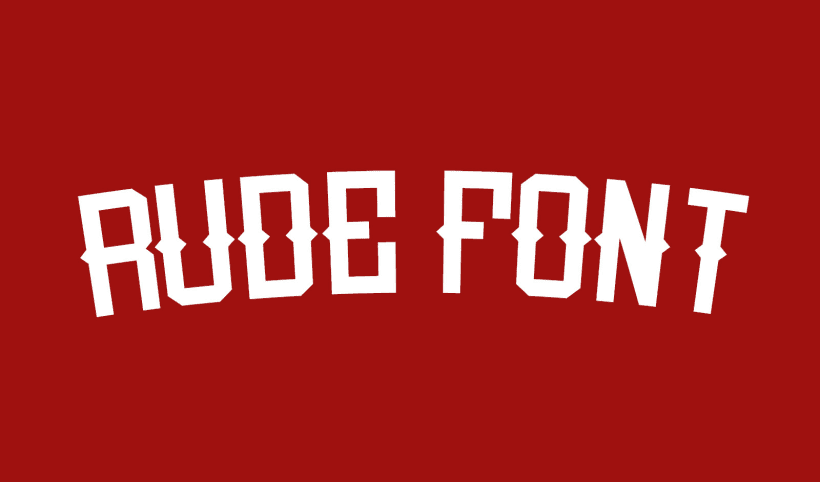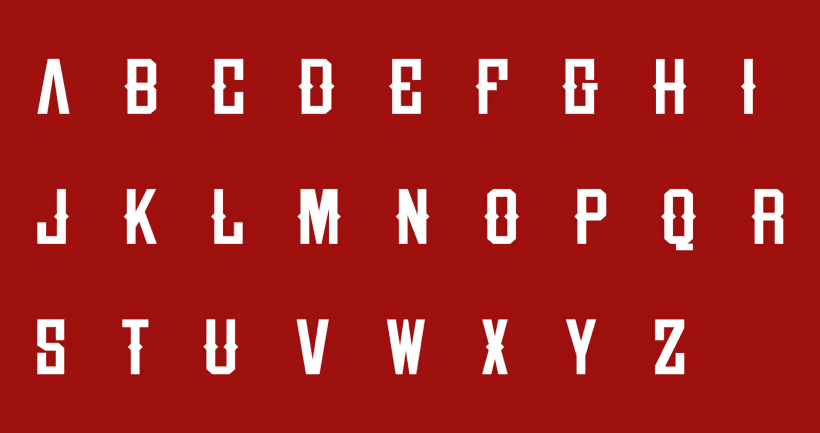
Download Free: ‘Rude Font’ Typography, by Miguel Nieto
Graphic designer Miguel Nieto shares his typography, Rude Font, with the Domestika community for free
Miguel Nieto (@miguelnieto) created Rude Font to fill the need for a typography inspired by the ads at the turn of the 20th century. He imagined a modern adaptation of the classic advertising publications with a touch of street style. The typography found its shape and now we can download it for free as members of the Domestika community.
The font was designed with Adobe Illustrator and FontLab and Nieto had a clear idea of what he wanted from the outset. Today, Nieto’s personal project has gone far beyond where he ever imagined:
"One day, while walking down the street, I noticed the T-shirt worn by a boy who was walking in front of me and I saw that they had used the Rude typeface. I approached him to ask where he had bought it and was surprised that it was the name of an important textile multinational, with which, by the way, I got in touch. This was a great joy for me because, when you do a personal project, you don't expect it to go so far."
This is the first typography Miguel ever dared to design, but not the last. His next challenge is to create a font script influenced by the work of Joluvian, an assignment he’ll get to work on once he finishes the Design of Calligraphy Logos course on Domestika.